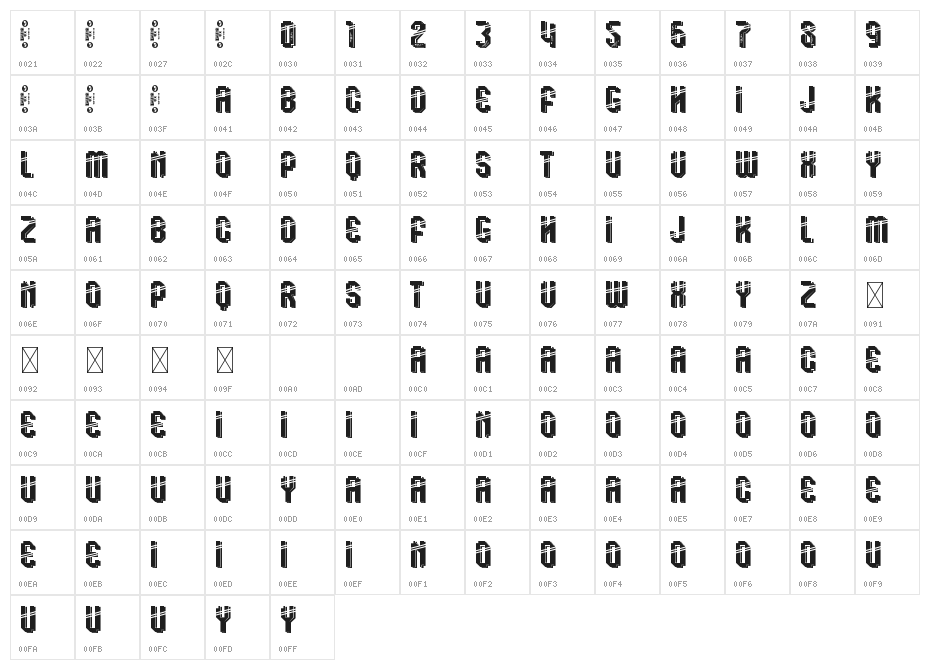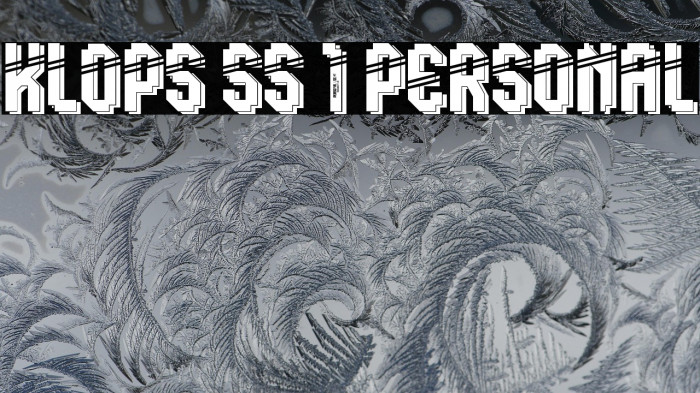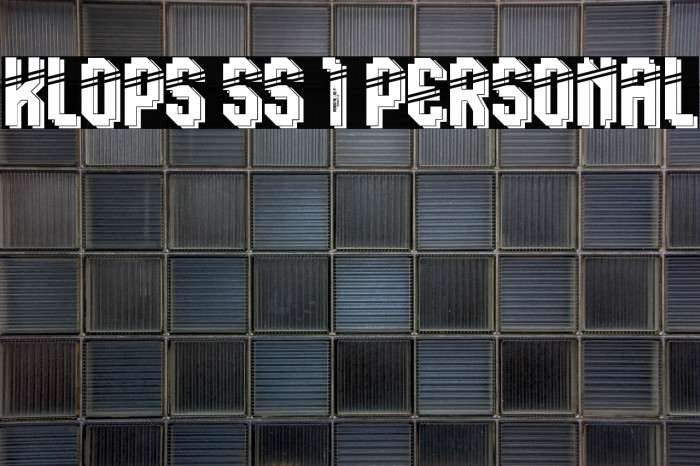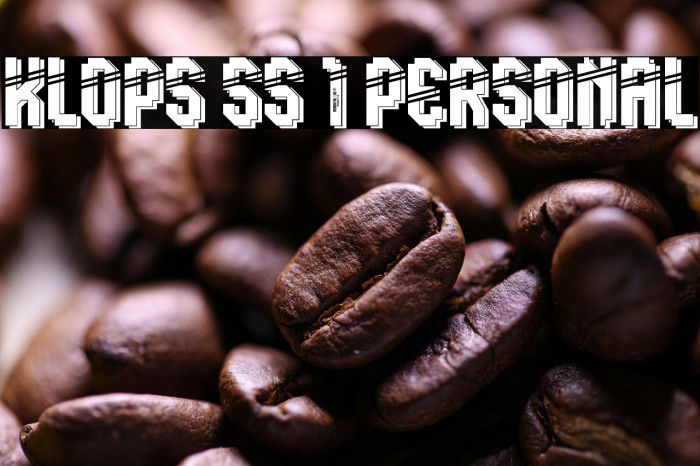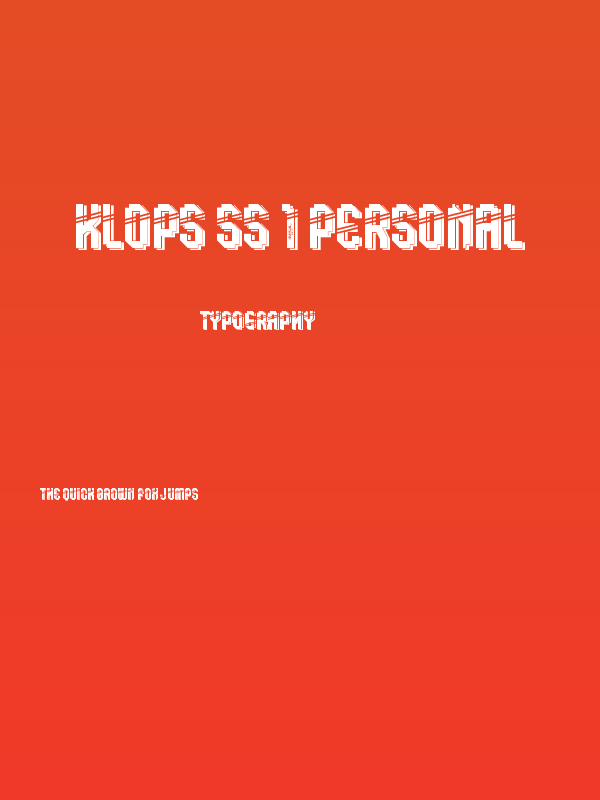
Klops SS 1 Personal Font
Klops SS 1 Personal Description
This font features a bold, geometric design with a distinct industrial feel. The characters are constructed with sharp angles and straight lines, giving them a mechanical and futuristic appearance. The font includes unique diagonal lines cutting through each character, adding a dynamic and edgy touch. The overall look is highly stylized, making it suitable for projects that require a strong visual impact. The uppercase letters are particularly striking, with a blocky and robust structure that commands attention.